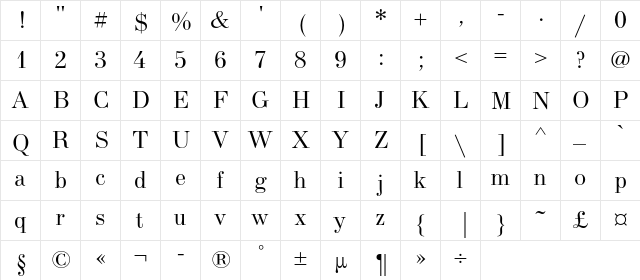
NewStandardC Regular
Design Context for NewStandardC Typeface
NewStandardC is a composed and adaptable typeface that performs quietly and consistently across a wide range of design contexts.